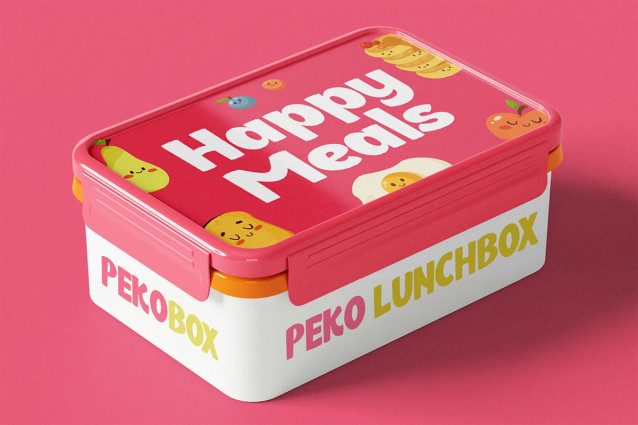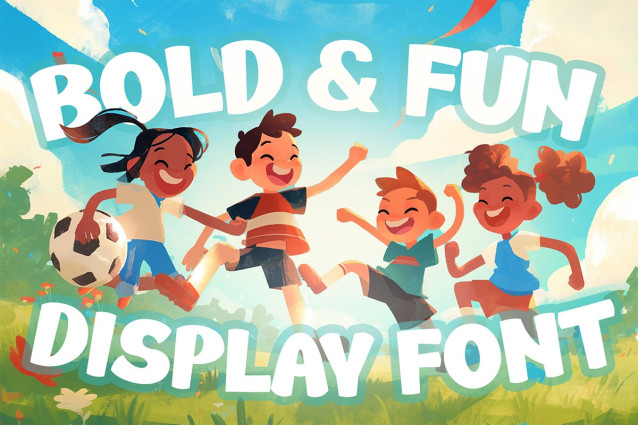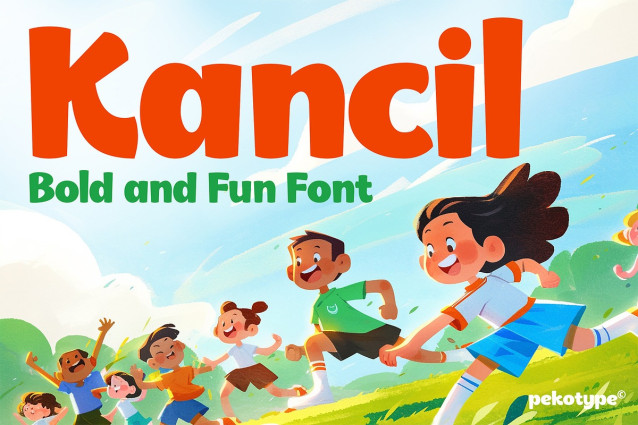
Kancil Display Font
Kancil Display Font a bold and playful display font designed to bring energy, character, and versatility to your creative projects. With its fun, modern sans-serif style and eye-catching curves, KANCIL is perfect for designers who want to make a strong visual impact.
Whether you’re working on branding, logo design, children’s books, packaging, movie posters, social media graphics, promotional materials, or print media, KANCIL brings a fresh, vibrant look that stands out in any layout. Its multipurpose nature makes it a great choice for both digital and print projects.
KANCIL is more than just a font—it’s a creative companion for bold ideas and playful concepts.